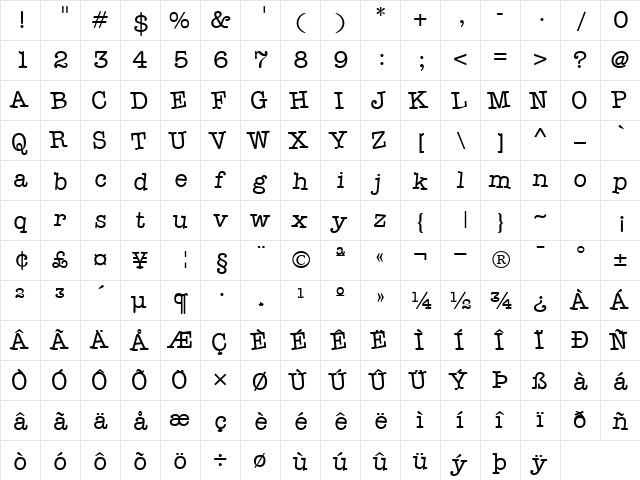
Sound Bold
Design Context for Sound Typeface
Sound takes a measured approach to typography — its balanced proportions and neutral character make it a reliable workhorse for both digital and print work. Its bold stroke weight gives it real presence on the page.